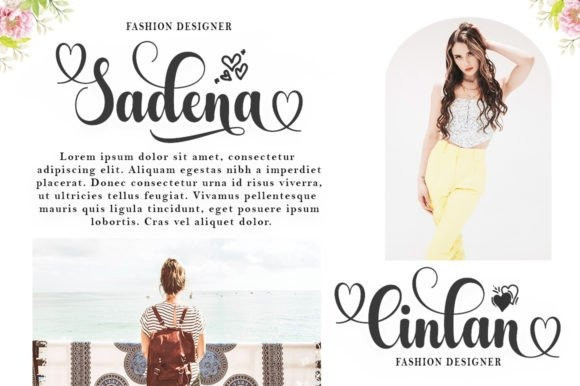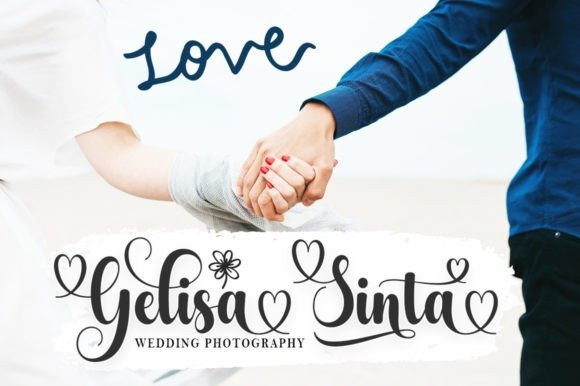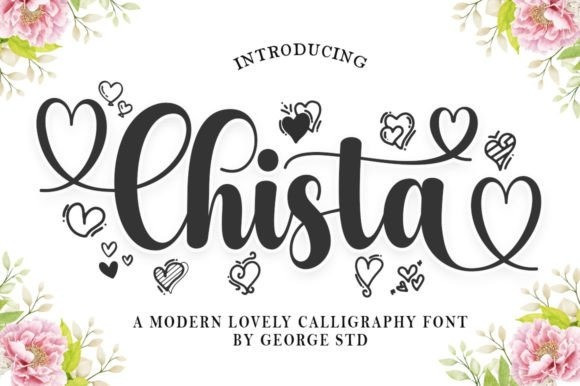
Chista Font
Chista Calligraphy Font is a romantic and sweet calligraphy typeface with characters that dance along the baseline. It has a casual, yet elegant touch.